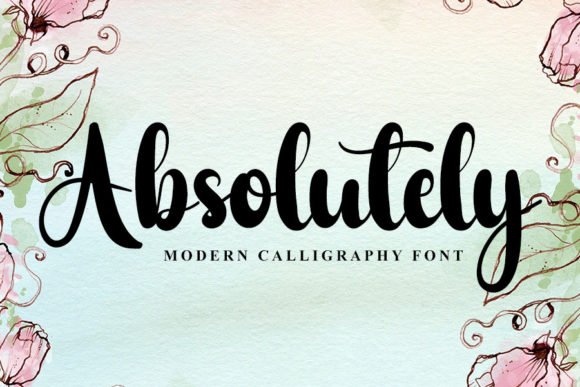
The Perfect Touch of Whimsy: Absolutely Font
There’s nothing quite like the rush of creative excitement when you stumble upon the perfect font. It’s that moment when all the pieces fall into place, and your design comes alive. For many designers, this feeling is a regular occurrence, but for others, it’s a rare and precious find. If you’re one of the latter, we’re excited to introduce you to a font that’s sure to become a staple in your design arsenal: Absolutely Font.
This lovely handwritten font is designed to add a touch of elegance and whimsy to your work. With its curvy lines and flowing script, it’s perfect for product packaging, branding projects, magazine covers, social media, and even wedding invitations. Whether you’re looking to add a playful touch or create a sophisticated look, Absolutely Font is the perfect choice.
- Unique Characteristics: The Absolutely Font family features a unique blend of modern and classic design elements, with subtle flair and elegant lines that make it perfect for use in both digital and print media.
Review of Absolutely Font
I recently had the chance to work with Absolutely Font, and I must say it’s a mixed bag. On the one hand, I really like the ✨ unique aesthetic it brings to a design. The font is playful, quirky, and fun, making it perfect for projects that need a bit of personality. The bold weight is especially great for headings, adding a touch of sophistication and elegance.
One of the standout features of Absolutely Font is its ✨ versatility. It’s suitable for a wide range of applications, from digital projects to print materials. The font also works well in both small and large sizes, making it a great choice for designers who need to adapt to different layout requirements.
However, I do have some concerns about the ⚠️ readability of Absolutely Font, especially in smaller sizes. The letterforms can be quite complex, which may cause issues for users with visual impairments or those who are reading on smaller screens. Additionally, the font may not be the best choice for projects that require a high level of professionalism or formality.
Overall, I think Absolutely Font is a solid choice for designers who want to add a bit of whimsy to their projects. While it may have some limitations, its unique aesthetic and versatility make it a great addition to any design toolbox.
Design Recommendations
- Use Absolutely Font for projects that require a playful or whimsical tone.
- Pair the font with a clean, modern sans-serif font for contrast and balance.
- Avoid using Absolutely Font in small sizes or for projects that require high readability.
Alternatives to “Absolutely Font” for Designers
Open Sans is a clean and modern sans-serif font, ideal for digital design and user interfaces. It’s highly legible and works well in a variety of contexts, from body text to headings. Compared to Absolutely Font, Open Sans is more versatile and suitable for a broader range of applications.